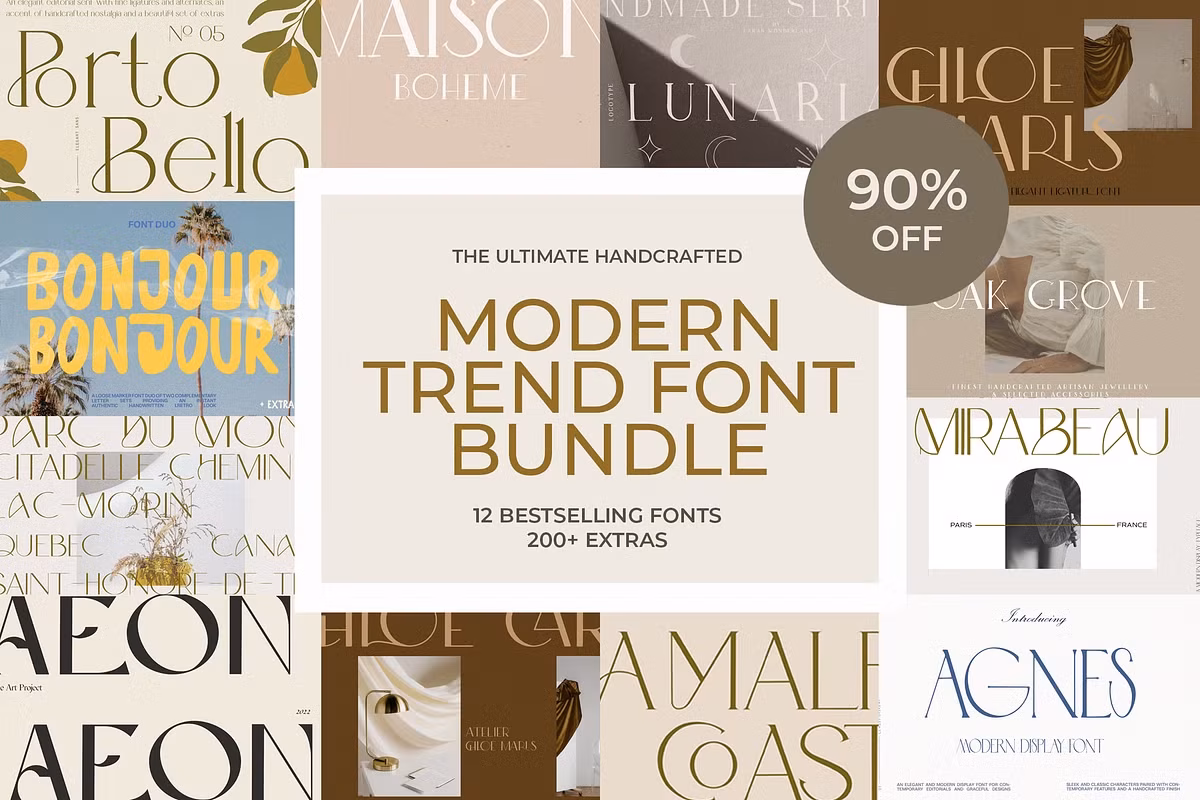
Modern Trend Font Bundle Free Download
Modern Trend Font Bundle Free Download is a curated collection of stylish and contemporary fonts designed to meet the needs of today’s creative professionals. With a variety of scripts, serifs, and sans-serifs included, this bundle is perfect for branding, marketing materials, social media graphics, and more.
Whether you're aiming for bold and edgy or clean and minimalist, Modern Trend Font Bundle Free Download has something to suit every aesthetic. This versatile pack empowers designers to mix and match font styles while maintaining a cohesive and modern look. Try out the bundle in your next project and experience the range and quality before making a full commercial commitment. It’s a go-to resource for anyone looking to stay ahead of design trends.